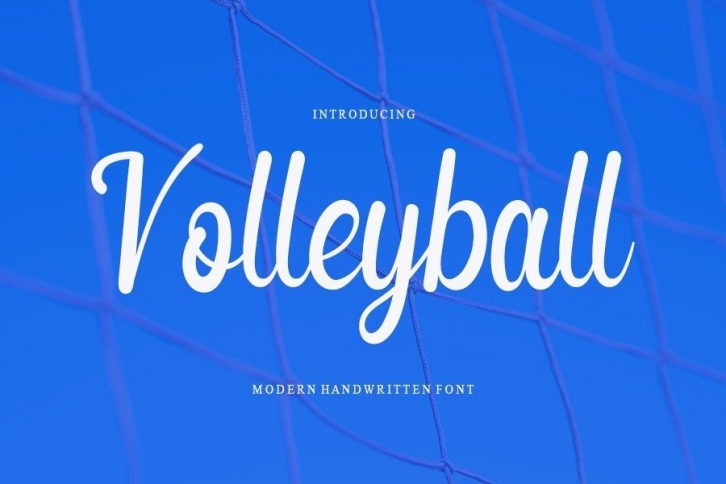
Volleyball is a friendly handwritten font, carefully designed to become a true favorite. It maintains its classy calligraphic influences while feeling contemporary and fresh.